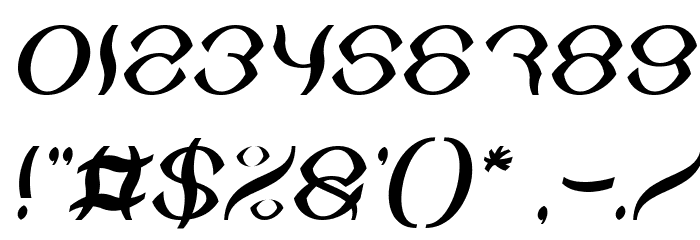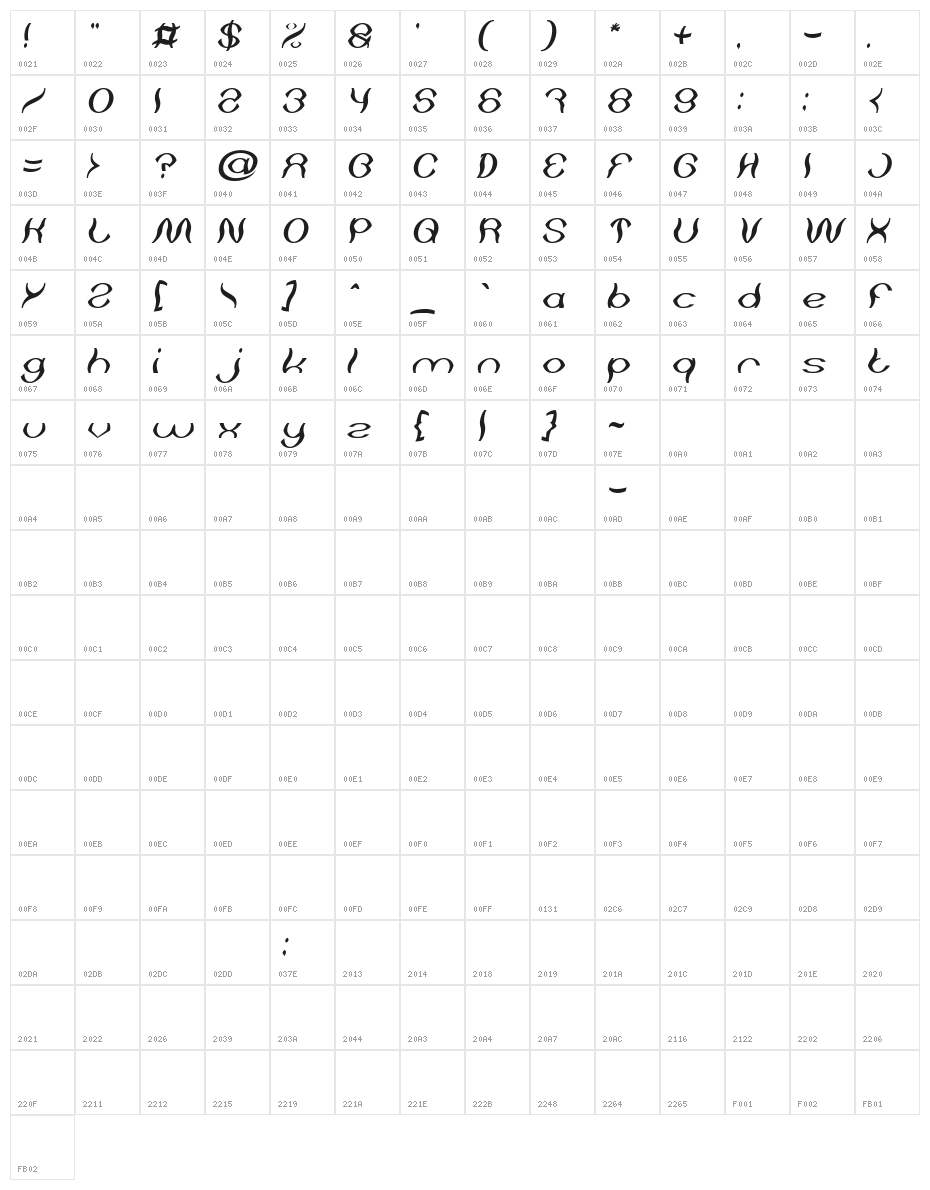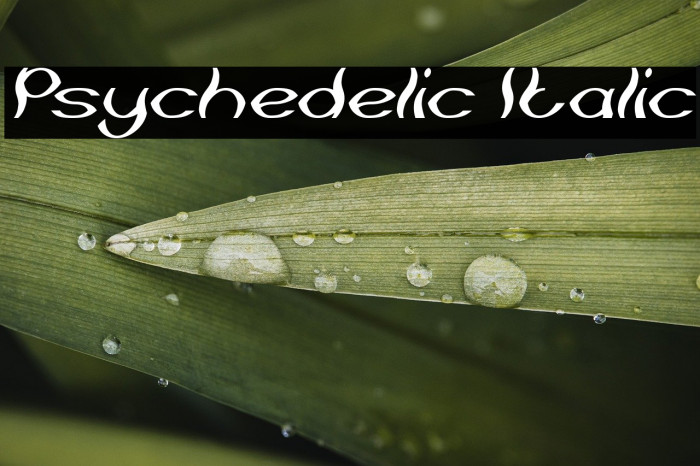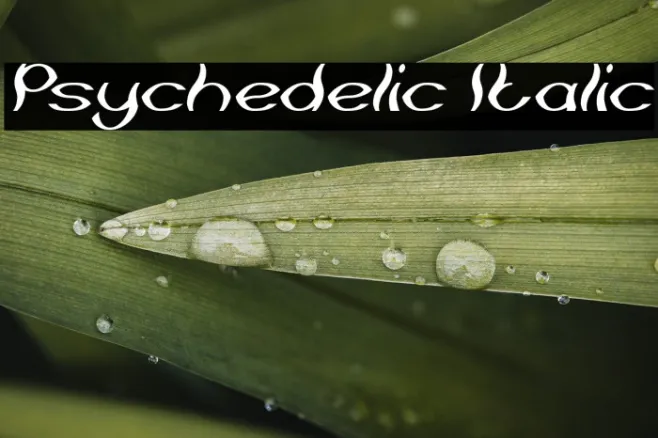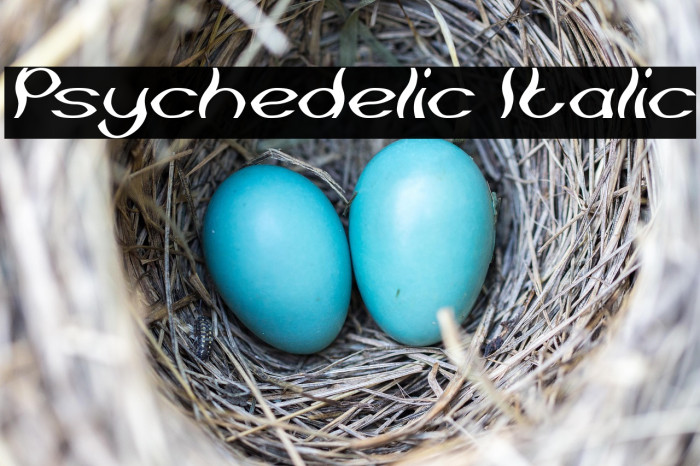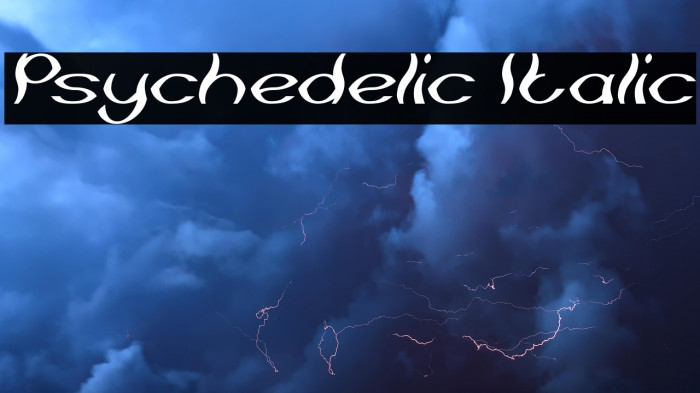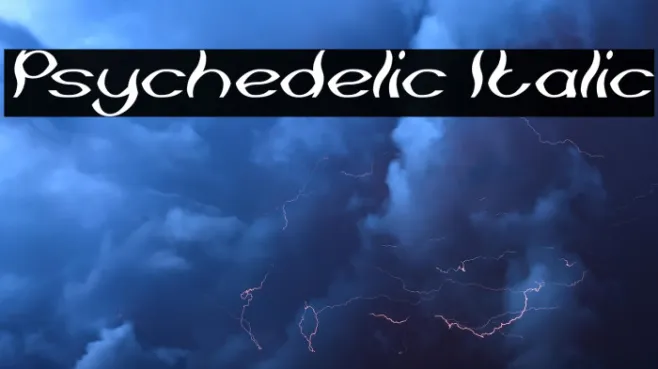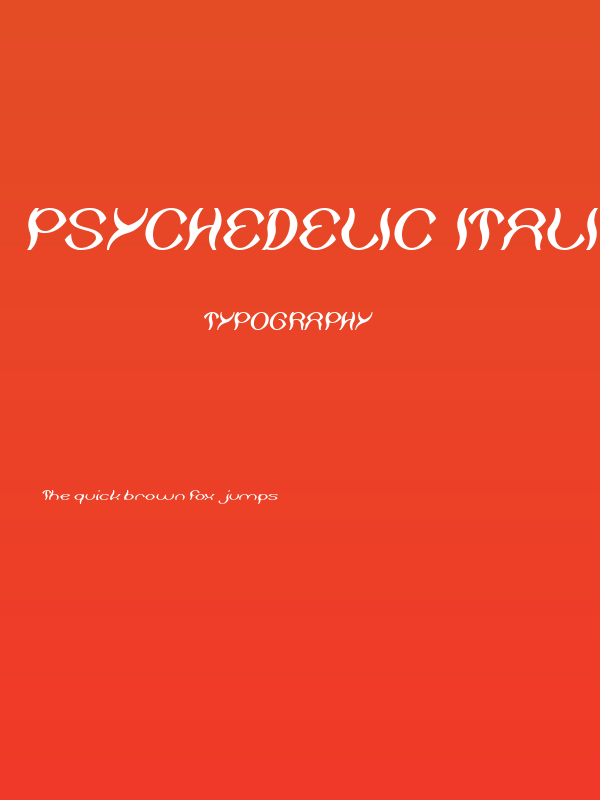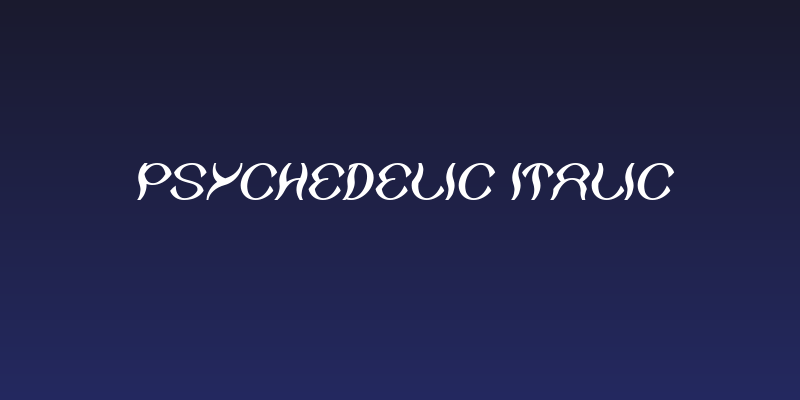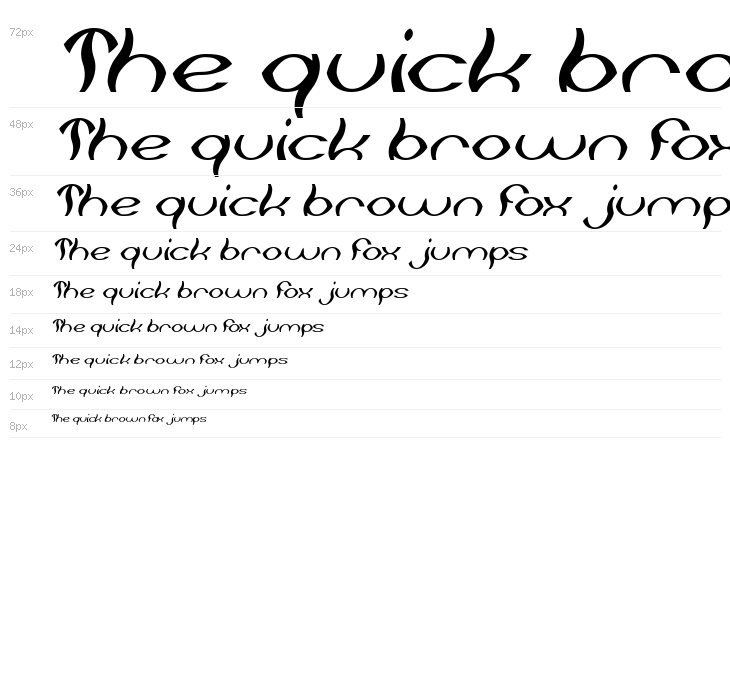
Psychedelic Italic Font
Psychedelic Italic Description
This font features a unique and artistic style with a psychedelic flair. The characters are italicized, giving them a dynamic and flowing appearance. Each letter is crafted with a combination of curves and sharp edges, creating a sense of movement and energy. The uppercase and lowercase letters maintain a consistent style, while the numbers and special characters complement the overall design. The font's distinctive look makes it suitable for creative and unconventional projects, adding a touch of whimsy and artistic expression.
| Overall Style | Psychedelic, Artistic, Dynamic |
| Use Case | Headlines, Artistic projects, Posters |
| Proposed Projects | Ideal for album covers, posters, artistic branding, and creative event invitations. |